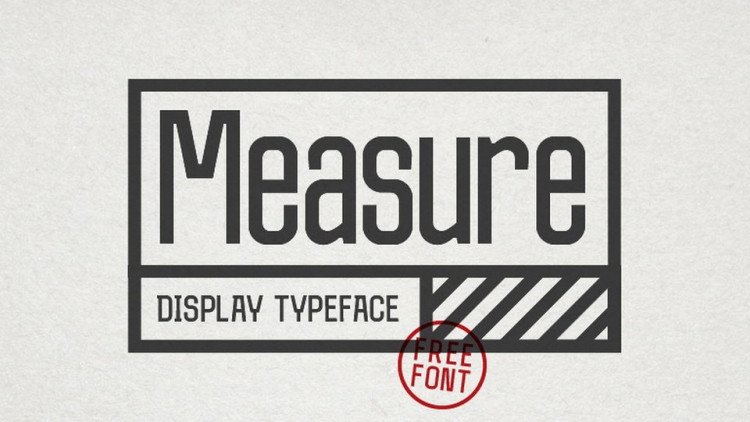
Measure Sans Font
Measure Sans Font is a sans serif typeface with narrowed proportions. It can be used for infographics, posters and text compositions.